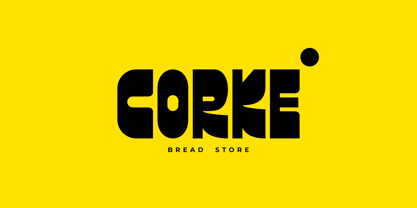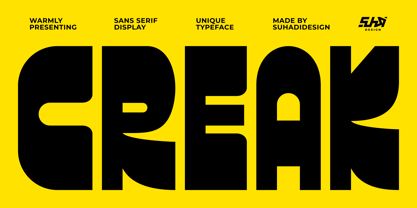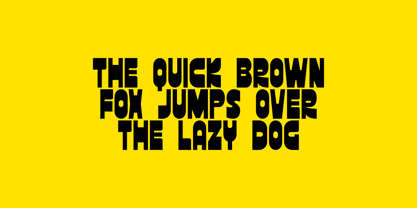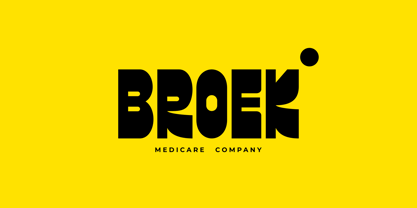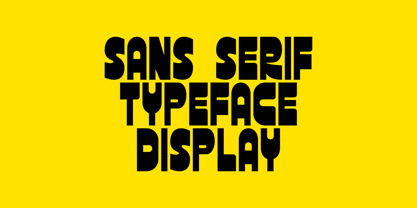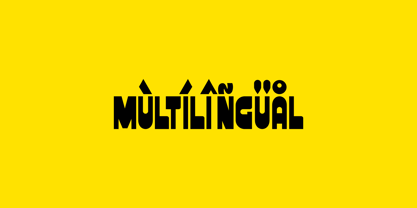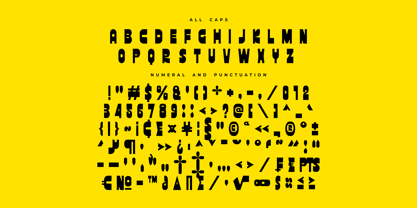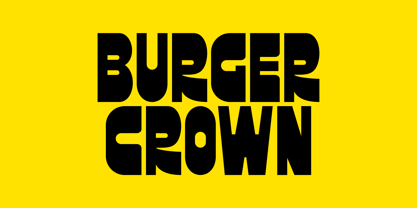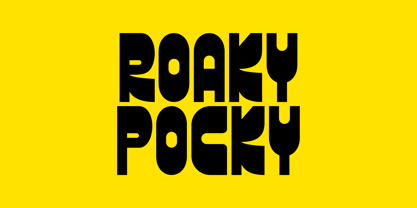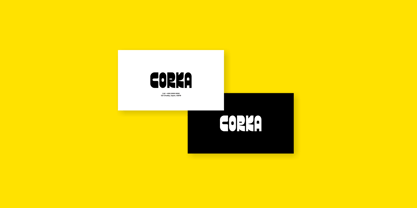
Creak
by suhadidesign
The Creak Font Family was designed by ahmad suhadi and published by suhadidesign. Creak contains 1 styles. More about this family
Creak - Sans Serif Display Typeface Hey ladies and gentlemen! In response to market demand, I created a unique and elegant sans serif display typeface. So, I decided to create this sans serif font. Creak is a sans serif display font, expected to be a market favorite. We've kept this font elegant, classy, ​​modern, stylish, contemporary, and easy to use. Creak is the perfect choice for packaging, logos, labels, brands, magazines, book covers, shopping bags, fashion, posters, banners, bags, branding, fashion, brand names, branding, quotes, and other projects. Creak is here to take your designs to the next level. The Creak font style will make you love design and take advantage of the cool design results of this font. Stay tuned for our font updates :) Font Features: • All Capital Letters • Multilingual Support • Numbers and Punctuation Thank you!